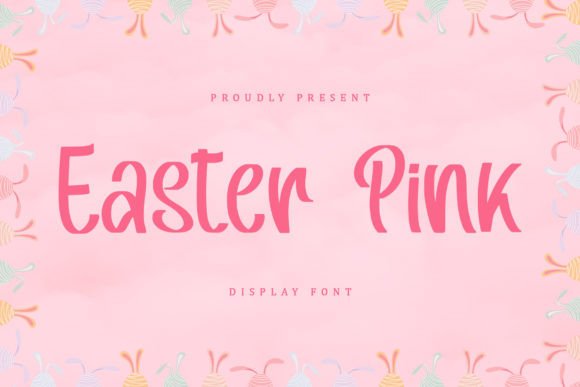
Prepare yourself to be mesmerized by Easter Pink, a captivating script font that weaves together elegance and allure! Stroke by stroke, this font dances across the page, capturing hearts with its charm and sophistication. Created by the visionary Esa Maradany, Easter Pink is more than just a font; it's an invitation to let your creativity flourish.
Designed to ignite the flames of passion, Easter Pink is the ultimate choice for love letters that yearn to be cherished forever. The delicate curves and smooth lines embrace each other, creating a visual symphony that speaks to the soul. Let your words of adoration flow effortlessly through this font, allowing your emotions to shine through with every letter.
Beyond love letters, Easter Pink's versatility extends to a myriad of creative endeavors. Its contemporary charm lends itself seamlessly to logos, headlines, and branding materials, adding a touch of modern elegance to any design. Imagine your brand name gracefully adorning your marketing materials, exuding professionalism and captivating your audience with its timeless beauty.
With Easter Pink, you'll discover a font that transcends the boundaries of ordinary. Its clean lines and subtle curves create visual harmony that complements any project. Say goodbye to boring typography and embrace the exquisite allure of Easter Pink, a font that whispers sophistication and captivates hearts.
Crafted with meticulous attention to detail, Easter Pink promises to elevate your designs to new heights. Its effortless grace and timeless appeal make it the perfect choice for those seeking a touch of romance, elegance, and creativity. Download Easter Pink today and let your artistic vision bloom with possibilities!